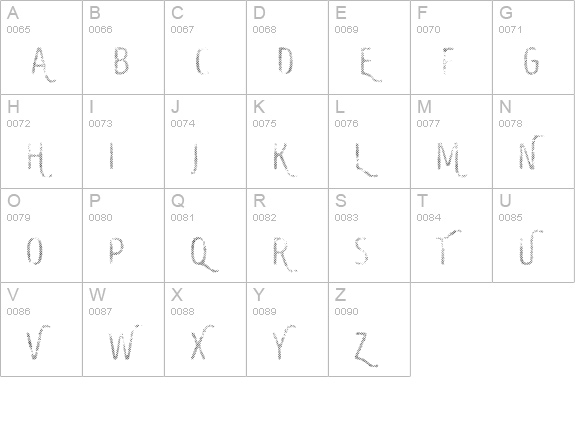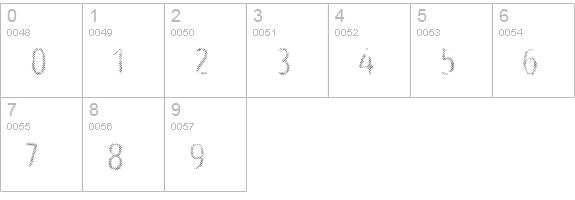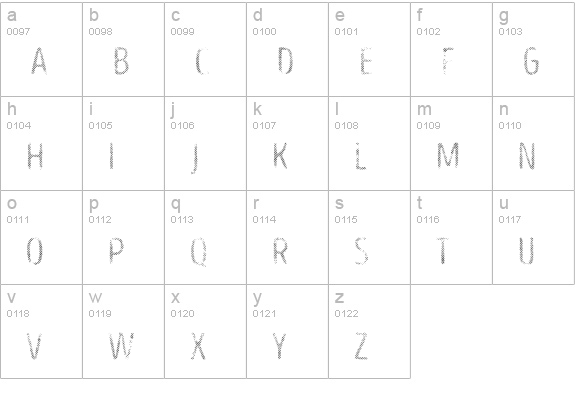
Intro Head B UC L Font Details
Intro Head B UC L is a bold and eye-catching display font that commands attention with its strong and distinctive style. This font is perfect for creating impactful headers, titles, and logos that make a statement. Its uppercase letters are uniquely designed to stand out and leave a lasting impression on viewers. The best part is that Intro Head B UC L is available for free download at FontsMarket.com. This means you can easily access this striking font and use it in your projects without any cost. Whether you're working on a branding project, advertising campaign, or any creative design, Intro Head B UC L is sure to enhance your work and make it shine. Download this font today and elevate your designs with its bold and powerful presence.